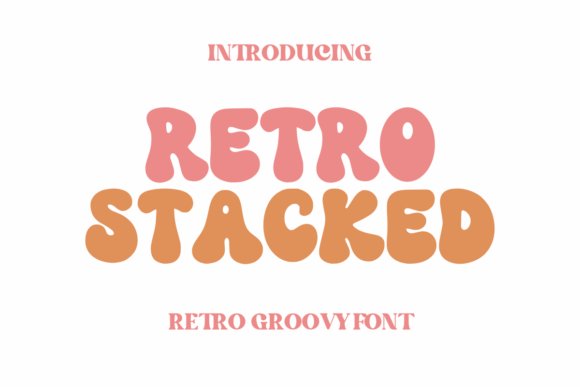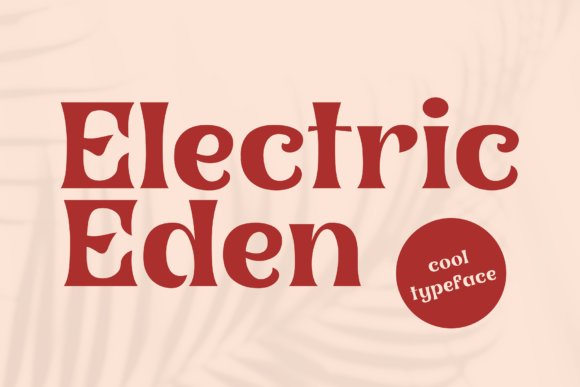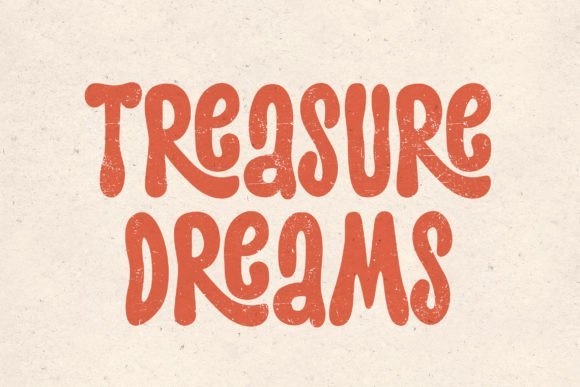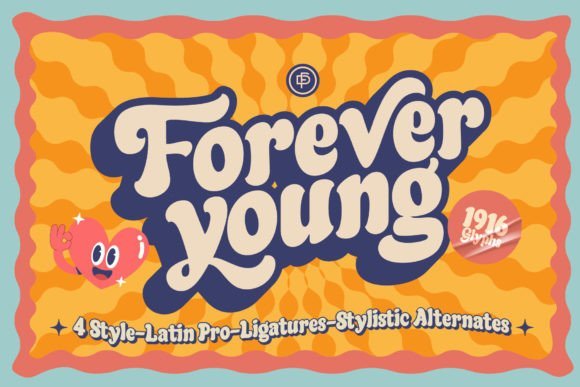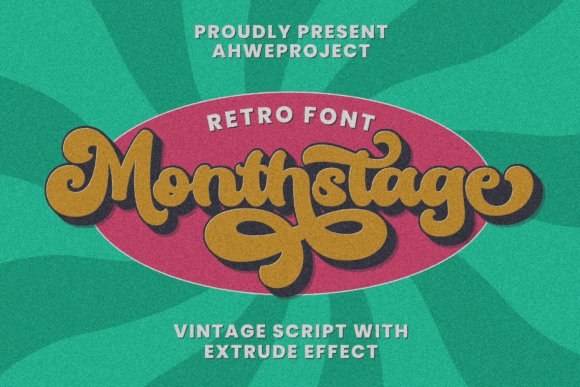
24 Best Retro Font Options for Your Next Vintage Design in 2026
If you have been searching for the perfect Retro Font to give your latest design a nostalgic feel, you are in the right place. In 2026, we are seeing a massive resurgence of vintage typefaces, old-school lettering, and throwback typography that adds instant character to any project. Whether you are working on a classic logo, a nostalgic poster, or a throwback website, picking the right Retro Font makes all the difference. I have put together a list of 24 incredible options that will help you nail that authentic aesthetic without spending hours scrolling through typography archives.
1. De Augusta Font
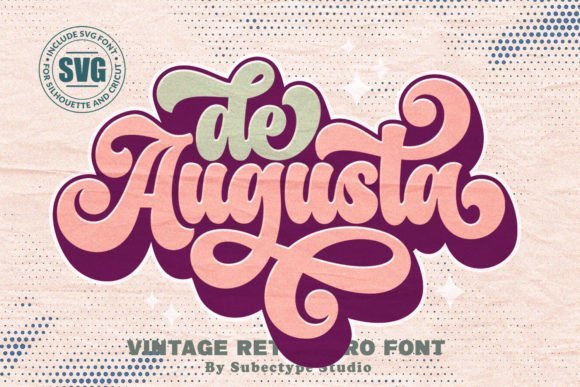
De Augusta Font is a masterful tribute to the golden era of design, channeling the vibrant retro typography and hand-drawn lettering that defined the 70s and 80s. This standout retro font seamlessly merges nostalgic charm with a bold, contemporary typography style, making it an incredibly versatile choice for modern creators. The striking weight and character of the letterforms offer an authentic vintage aesthetic that instantly transports viewers back in time, while maintaining the legibility required for high-impact digital and print media.
Whether you are crafting custom apparel, designing intricate badges, or developing a cohesive brand identity, this nostalgic typeface provides the perfect foundation. It shines brilliantly across a variety of mediums, including eye-catching posters, premium packaging, classic signage, and evocative book covers. Furthermore, the De Augusta Font is fully PUA encoded, ensuring that designers have effortless access to its extensive library of alternate glyphs and sweeping swashes, allowing for truly customized, show-stopping typographic compositions.
2. Back to Vintage Font
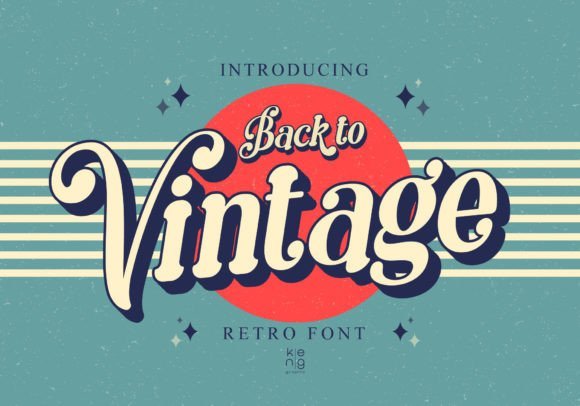
True to its name, the Back to Vintage Font is a quintessential retro font designed to infuse your creative projects with an undeniable sense of nostalgia. Drawing heavy inspiration from the iconic typographic trends of the 60s, 70s, and 80s, this display typeface ensures that any message you craft is instantly recognizable and visually arresting. What sets this vintage typeface apart is its unique structural approach; every corner is deliberately softened and rounded, creating a warm, approachable aesthetic that contrasts beautifully with stark modern minimal designs. It captures the essence of classic Americana and old-school advertising.
This highly adaptable retro font is the ultimate tool for designers looking to add a special vintage touch to a multitude of creative endeavors. It works phenomenally well for standout headlines, groovy apparel designs, retro-themed event posters, and artisanal product packaging. By leveraging the smooth curves and distinct personality of the Back to Vintage Font, you can effortlessly transform ordinary text into a striking visual centerpiece, giving your branding projects a genuine, time-tested appeal that resonates with both older generations and modern vintage enthusiasts alike.
3. Picky Retro Font
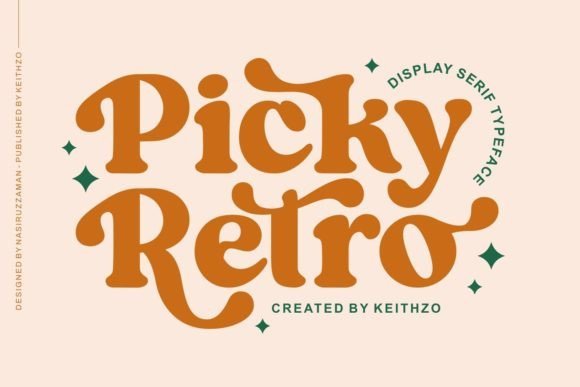
The Picky Retro Font is a bold, charismatic display serif typeface engineered to bring a sophisticated touch of vintage flair to your digital canvas. Unlike standard sans-serif throwbacks, this elegant retro font utilizes strong, distinctive letterforms that masterfully evoke a sense of classic mid-century elegance while simultaneously introducing a hint of playful nostalgia. The robust serifs and contrasting stroke weights provide a striking visual rhythm, making it an exceptional choice for designers who want to bridge the gap between traditional refinement and funky, old-school aesthetics.
When it comes to application, this dynamic retro font proves its worth across a vast array of high-end design contexts. Whether you are conceptualizing a memorable brand logo, setting commanding editorial headlines, or designing bespoke event invitations, Picky Retro delivers a timeless charm that is guaranteed to captivate your audience. Its authoritative yet approachable demeanor ensures that your typography does not just convey information, but also tells a compelling visual story rooted in classic design principles. Incorporate this nostalgic typeface into your workflow to instantly elevate your layouts and stand out in today’s crowded visual landscape.
4. Kringe Font
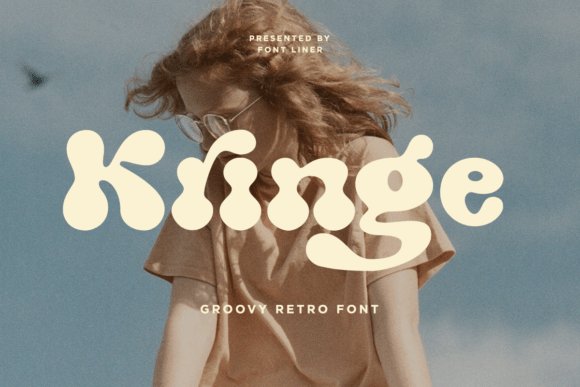
Kringe Font is an exceptionally groovy retro font that masterfully balances bold proportions with softly rounded edges, delivering an authentic vintage typography experience. By blending the carefree aesthetic of 70s style design with highly legible modern characteristics, this nostalgic typeface provides creatives with the ultimate tool for throwback lettering. Whether you are aiming to capture the vibrant, carefree energy of the disco era or simply want a typeface that radiates warmth and approachability, Kringe effortlessly bridges the gap between historical charm and contemporary graphic design needs.
This striking display font truly shines across a multitude of commercial and personal applications, making it an indispensable asset in any creative toolkit. Graphic designers will find it absolutely perfect for developing eye-catching SVG designs, custom apparel like t-shirts, personalized mugs, and quirky die-cut stickers. Furthermore, its smooth, heavy strokes make it a dream to use within digital illustration apps like Procreate, allowing you to craft impactful logos, captivating social media graphics, and vibrant event posters that demand attention and leave a memorable, lasting impression.
5. River School Font
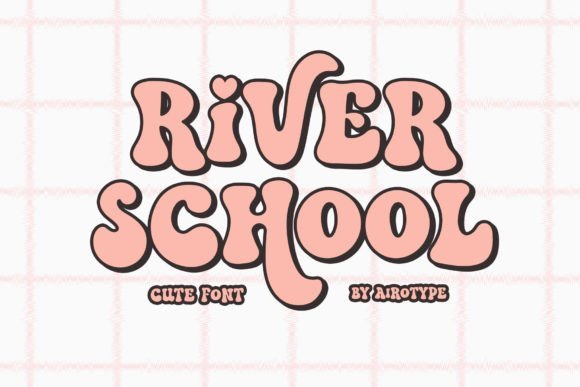
River School Font emerges as a charming, bold, and brilliantly bubbly retro font that instantly transports your visual projects back to a more playful era of design. Dripping with a distinctive vintage feel, this robust typeface leans heavily into an old-school design aesthetic while remaining incredibly versatile for modern creators. What truly sets River School apart is its expansive character set, which includes a generous collection of extra glyphs and creative alternates for both uppercase and lowercase letters. This flexibility empowers typography enthusiasts to deeply customize their headlines and wordmarks, ensuring every word features a unique, handcrafted appearance that resonates with classic typography lovers.
Finding that perfect balance between old-school charm and modern readability is key when working with nostalgic text. I hope this collection helps you find a typeface that fits your creative vision perfectly for your 2026 projects. Do not be afraid to mix and match these vintage typefaces to see what unique combinations you can come up with to make your artwork pop. Happy designing!